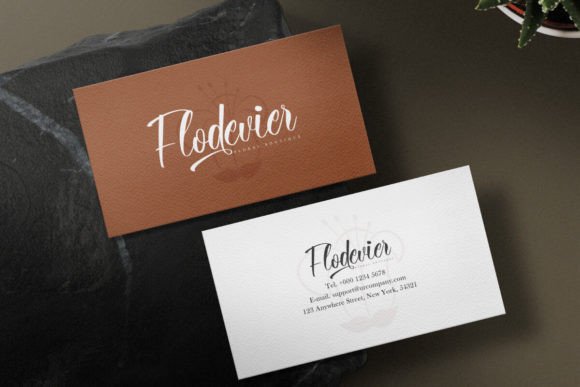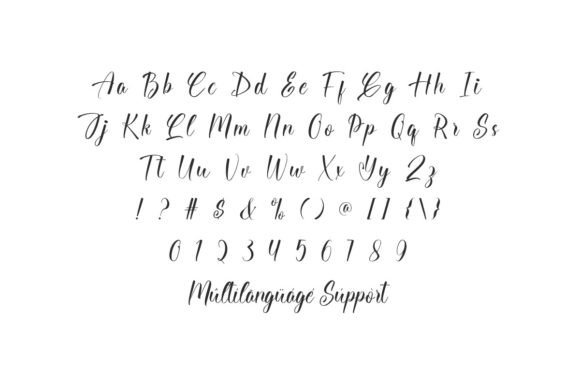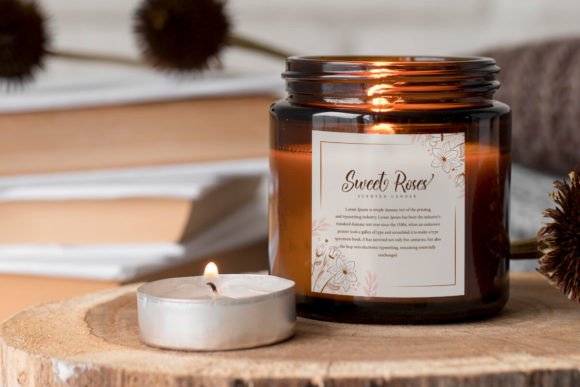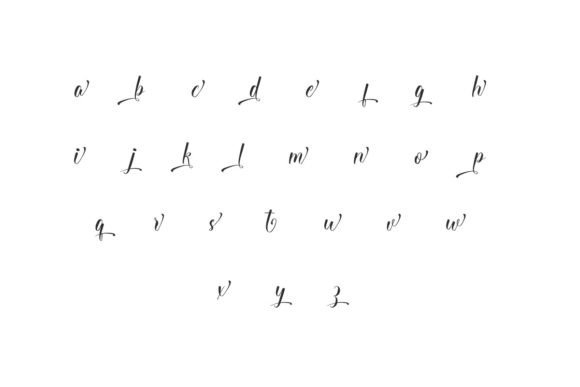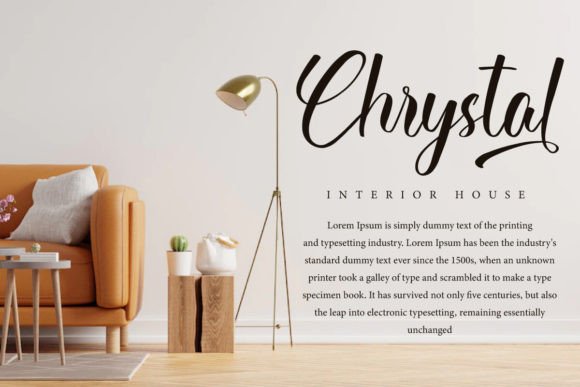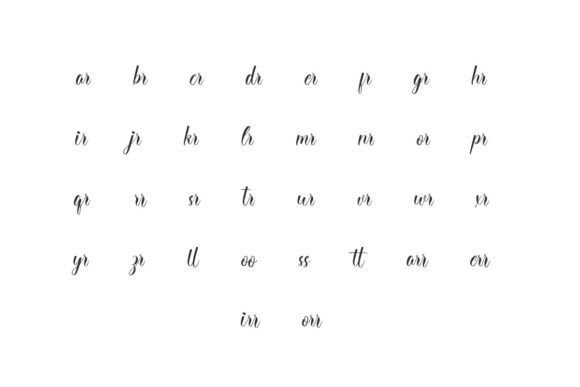
The Perfect Brushstroke: Unveiling the Candle Suit Font
Have you ever found yourself lost in the world of design, struggling to find the perfect font to bring your vision to life? Perhaps you’ve spent hours browsing through endless options, only to settle for something that just doesn’t quite feel right. That’s where the magic of Candle Suit Font comes in – a stunning script font that combines elegance and sophistication with a touch of whimsy.
| 👤 Author | NihStudio |
Candle Suit Font is more than just a font; it’s a tool designed to elevate your designs and leave a lasting impression. With its beautiful calligraphy style and balanced brushstrokes, this font is perfect for a wide range of applications, from billboards and business cards to magazine catalogs and website headers.
Candle Suit Font Key Features
- Size: The font is available in a single weight, making it suitable for a wide range of applications.
- Resolution: The font is designed to be scalable and can be used at various resolutions, including low-resolution displays.
- Unique Characteristics: Candle Suit Font features a unique, cursive script with a warm and elegant feel, reminiscent of handwritten notes.
- Font Size Range: Suitable for use in titles, headings, and body text, with an optimal font size range of 10-48 points.
Candle Suit Font Review
First off, let me say that I was immediately drawn in by the unique aesthetic of Candle Suit Font. ✨ The quirky, handwritten feel really stands out and could be a great addition to the right project.
One of the strengths of Candle Suit Font is its ability to add a touch of personality to designs. ✨ The irregular letterforms and varied line weights create a sense of energy and movement, making it perfect for titles, headings, or any other element where you want to draw attention.
Here are some of the key features that I think make Candle Suit Font worth considering:
- Quirky, handwritten feel
- Unique aesthetic that stands out
- Perfect for titles, headings, or attention-grabbing elements
Of course, no font is perfect, and Candle Suit Font has some limitations to consider:
- May be difficult to read in small sizes or at a distance
- Can be overwhelming if used extensively throughout a design
- Doesn’t lend itself well to body text or large blocks of text
Overall, I think Candle Suit Font is a great choice for designers who want to add a touch of whimsy and personality to their work. With the right use and design, it can really make a project stand out.
Tips for Getting the Most Out of the Candle Suit Font
1. Use the font sparingly to add a touch of elegance to your designs.
2. Pair the font with bold or italic text to create visual interest.
3. Experiment with different font sizes and colors to create a unique look.
2. Luxury brand logos and packaging.
3. High-end event invitations and promotional materials.
Candle Suit Font is a modern sans-serif font known for its clean and minimalistic design. However, designers may want to explore other options that offer similar characteristics or unique features. Here are a few alternatives: